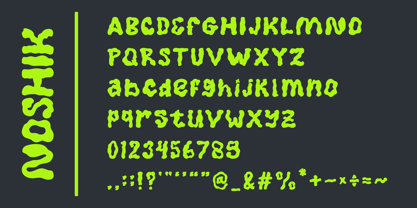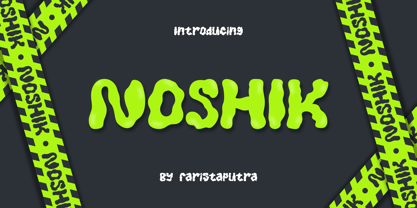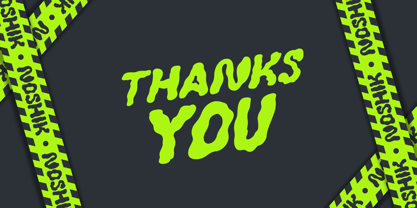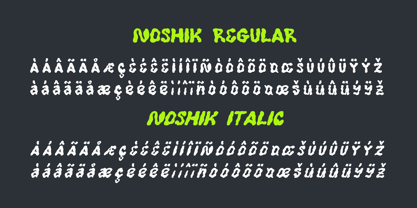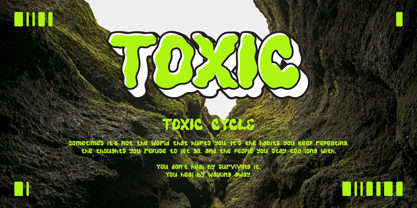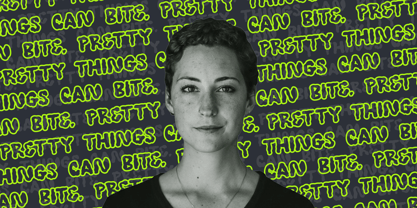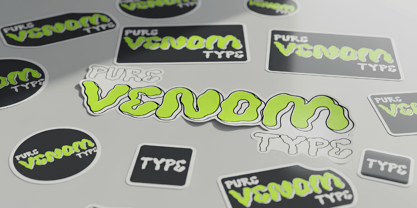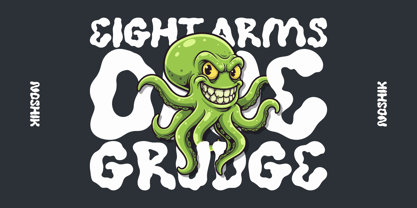
FA Noshik
by Faristaputra
The FA Noshik Font Family was designed by Frederik Aristaputra and published by Faristaputra. FA Noshik contains 2 styles and family package options. More about this family
NOSHIK is a bold, gooey display font inspired by slime, toxic vibes, and playful chaos. Its soft, melting letterforms create a strong visual impact, making it perfect for posters, streetwear, packaging, album covers, games, and experimental branding. Designed to stand out loud and weird, NOSHIK works best at large sizes and brings a fun, edgy personality to any project that needs attitude and character.
Designers: Frederik Aristaputra
Foundry: Faristaputra